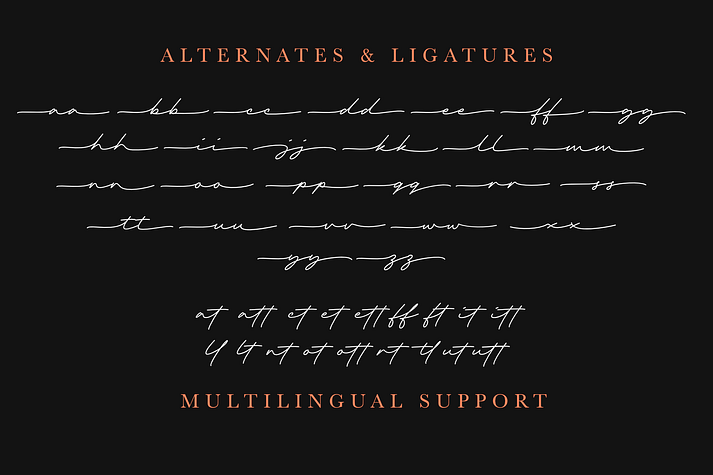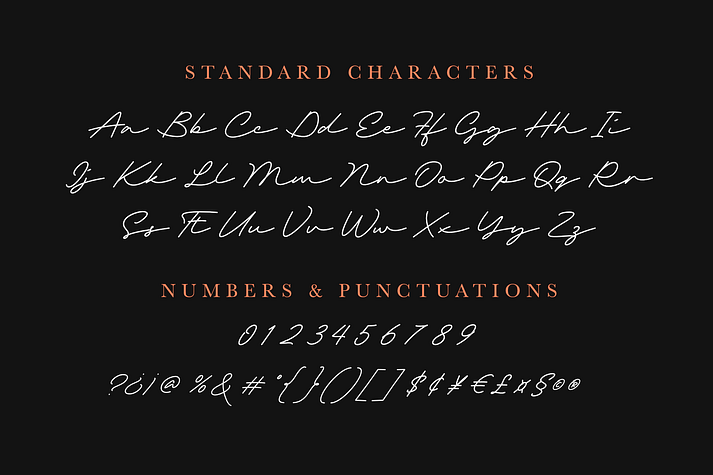
Richard Kailay
Richard Kailay is a script font family published by Silverdav Studio.
Introducing, Richard Kailay font, with an elegant style, is here to give a luxurious impression to your design, made with consistent strokes so as to produce works that will perfect your design, there are many alternates and ligatures to add a luxurious impression to your design.
Richard Kailay is very suitable for Branding, Logos, Magazines, handicrafts, quotes, book covers, wedding invitations, and more.
• Beginning & Ending Swash
• Alternates & Ligatures
• Multilingual Support